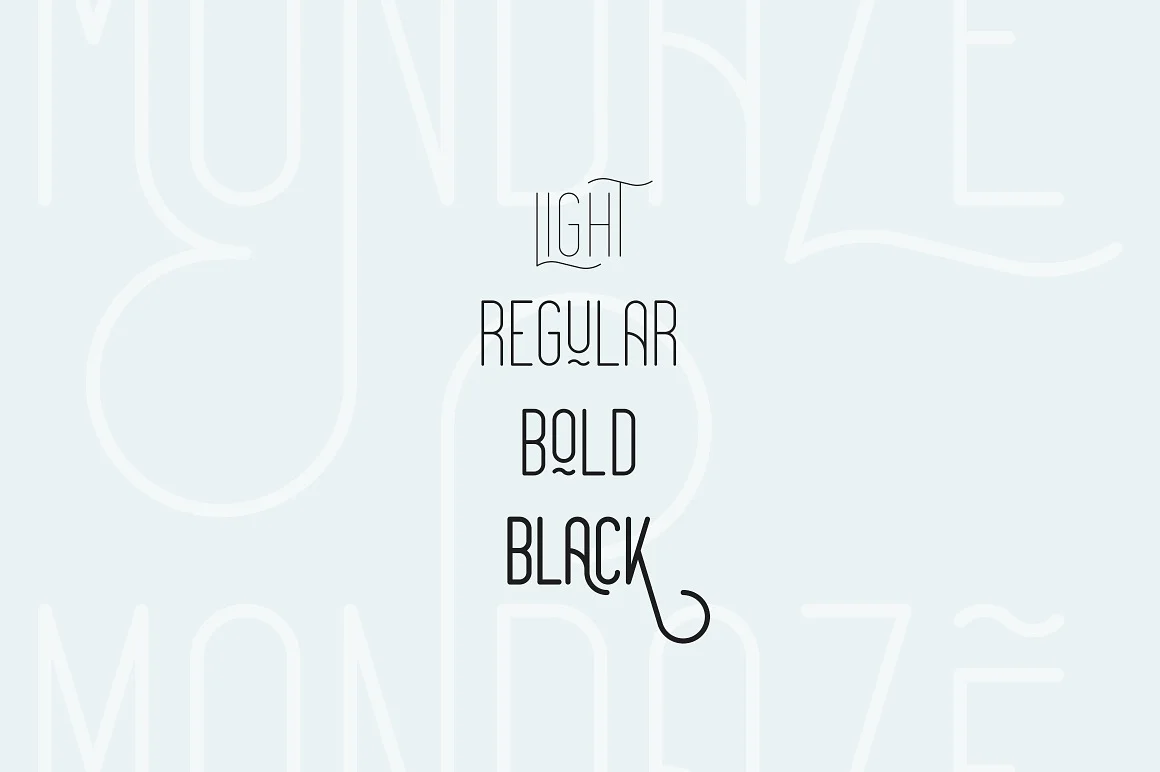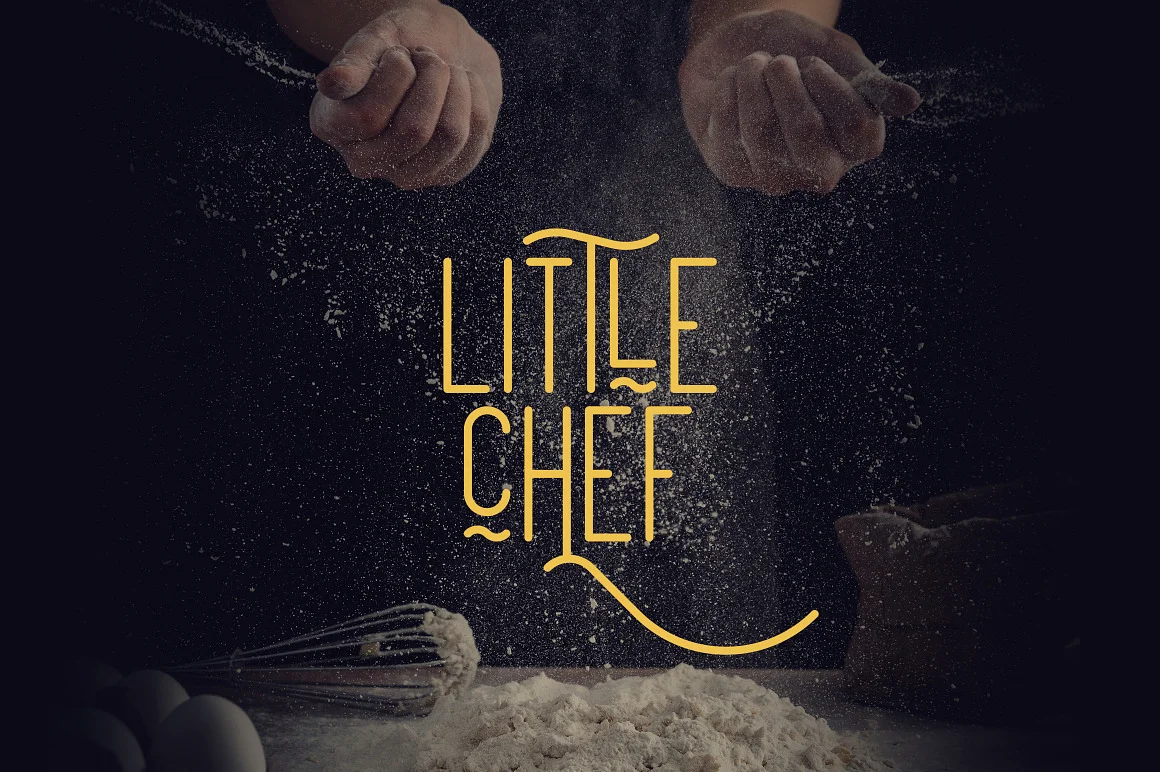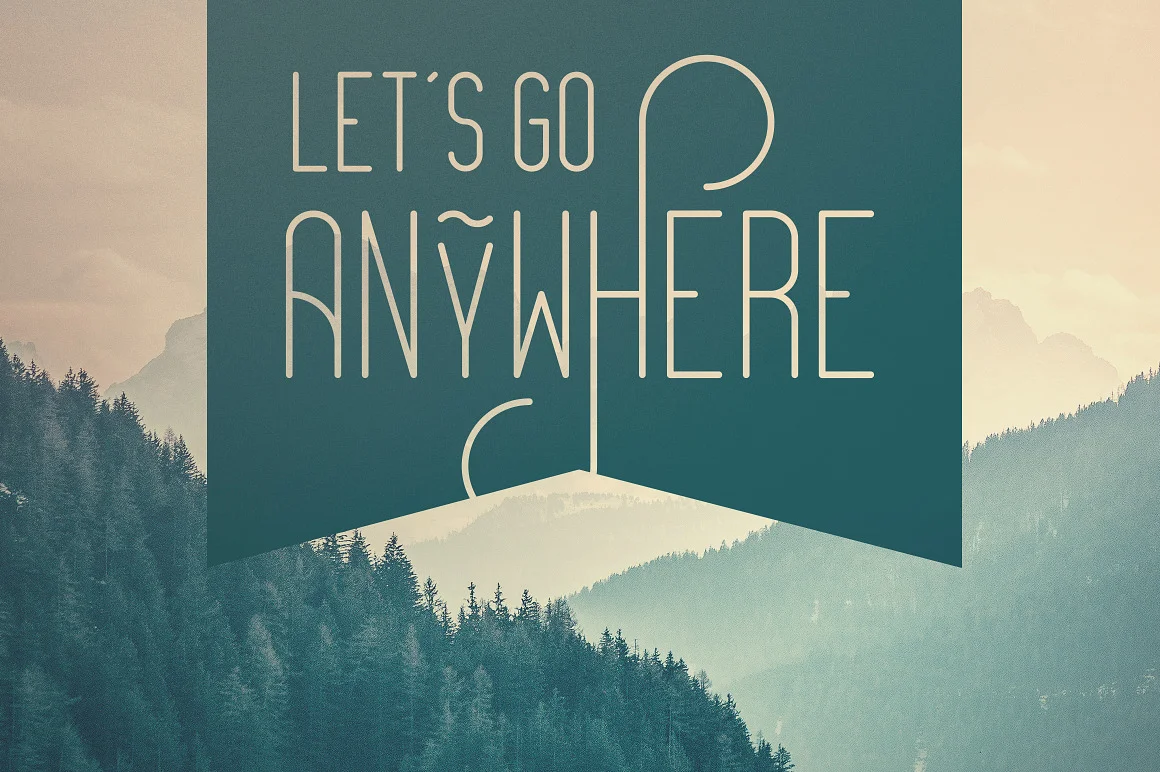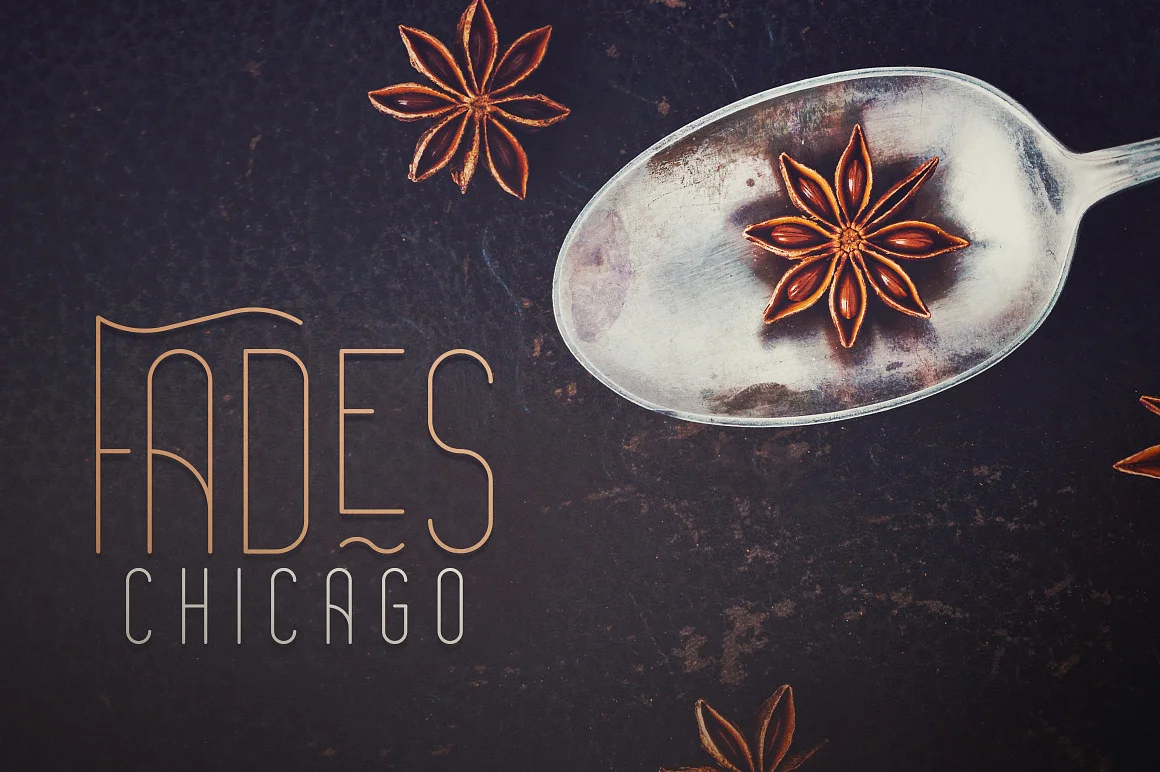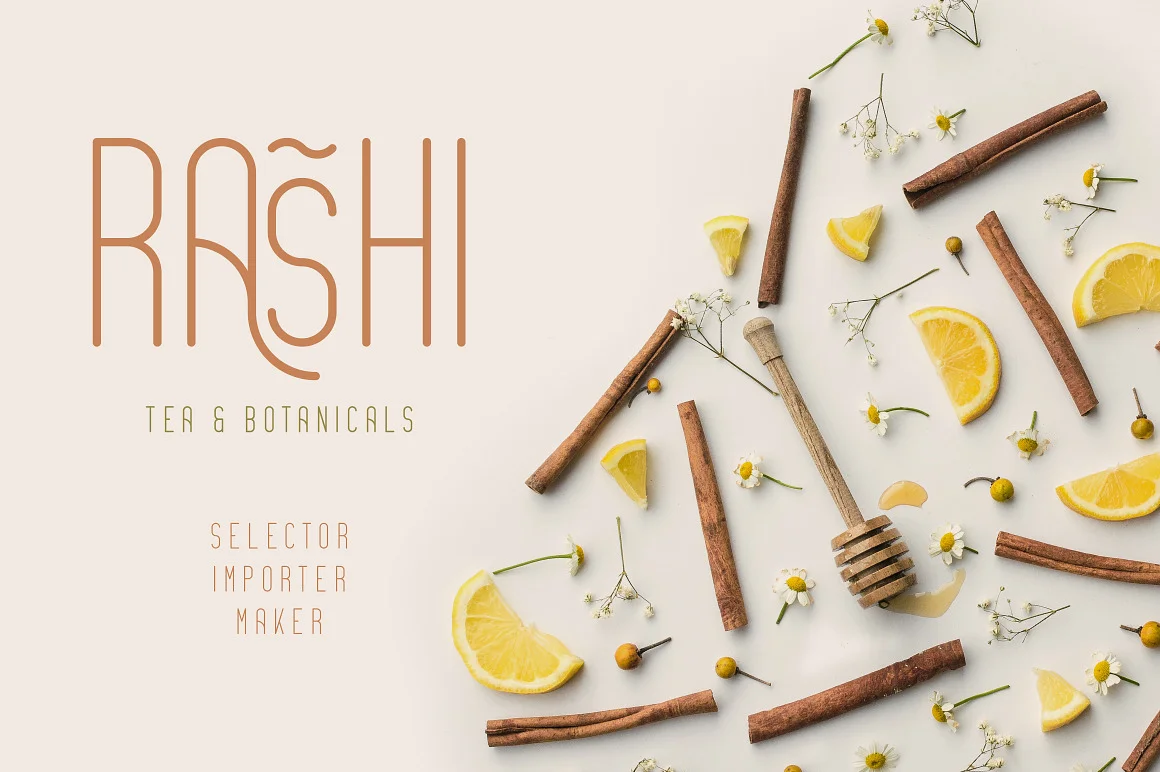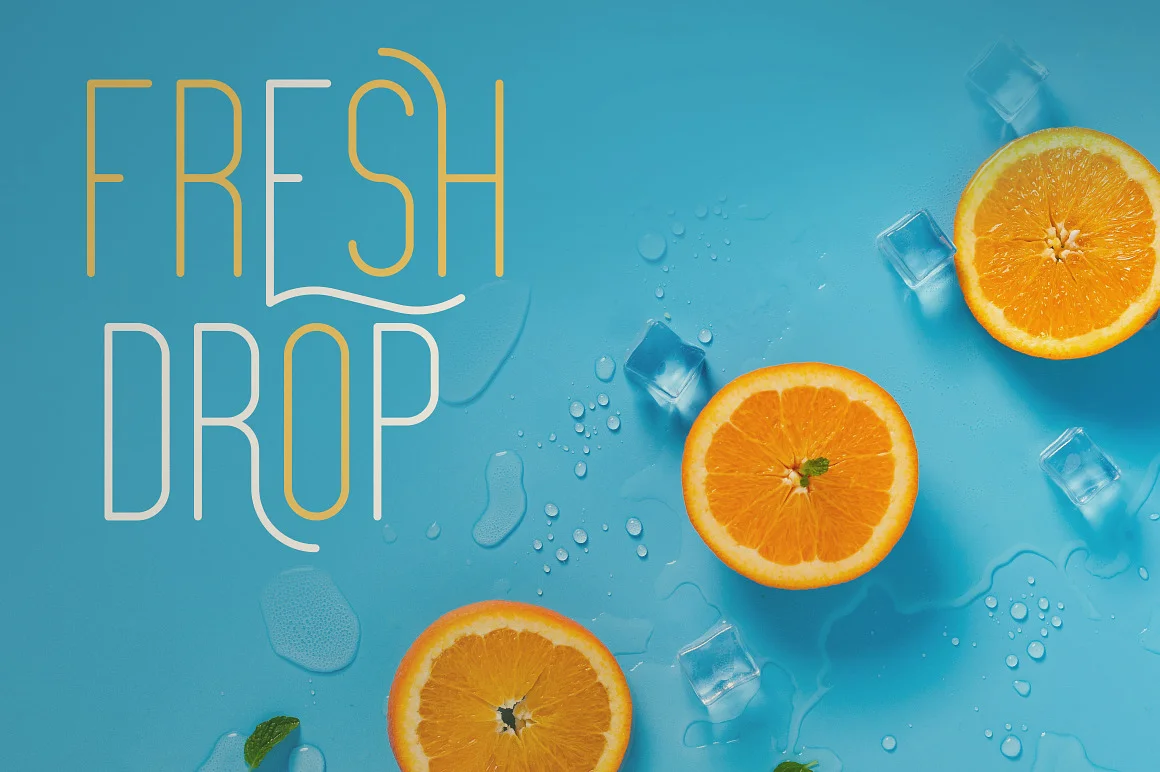
Mondaze Typeface - 4 Weights Font
Mondaze Typeface 4 Weights Font
Mondaze Typeface 4 Weights Font is perfect for dreamy lifestyle branding, relaxed fashion labels, leisure industry marketing, chill social media graphics, laid-back restaurant branding, casual event materials, comfortable product packaging, mellow music album covers, serene spa communications, and peaceful wellness campaigns.
What makes Mondaze Typeface 4 Weights Font so exciting is its dreamy relaxation that captures the essence of leisurely moments and peaceful states of mind while maintaining contemporary sophistication and professional quality. This soothing typeface embodies tranquil elegance and gentle strength, creating typography that instantly evokes feelings of calm and contentment.
The Mondaze Typeface 4 Weights Font family includes light, regular, medium, and bold weights, featuring dreamy design elements, relaxed styling options, and peaceful characteristics that provide designers with comprehensive tools for creating serene and memorable typography that celebrates the beauty of relaxation and mindful living.
Embrace peaceful sophistication with Mondaze Typeface 4 Weights Font, a beautifully crafted typeface that brings dreamy tranquility and relaxed elegance to contemporary design projects. This exceptional font embodies the perfect fusion of peaceful aesthetics and professional functionality, making it an ideal choice for brands that celebrate mindful living and serene experiences.
The gently flowing letterforms of Mondaze Typeface 4 Weights Font showcase dreamy elegance with peaceful character that creates instant emotional connection and calming brand presence. Each character displays careful attention to maintaining the tranquil spirit that defines relaxed sophistication while ensuring contemporary readability and professional versatility. The font's gentle curves and peaceful spacing contribute to its soothing appearance and meditative appeal.
Wellness brands and lifestyle-focused companies consistently choose Mondaze Typeface 4 Weights Font for projects requiring peaceful authenticity and dreamy sophistication. The comprehensive character set includes uppercase and lowercase letters, numerals, extensive punctuation, international accents, and peaceful decorative elements that provide complete support for wellness branding applications and tranquil design compositions.
The timeless serenity of Mondaze Typeface 4 Weights Font ensures exceptional performance across both traditional print and modern digital platforms. Whether developing wellness brand identities, creating relaxed marketing materials, or designing peaceful social media content, this remarkable typeface delivers consistent tranquility that resonates with audiences seeking balance, peace, and mindful living experiences.
Transform your most peaceful projects with Mondaze Typeface 4 Weights Font. This extraordinary typeface brings dreamy sophistication and tranquil elegance to typography, making it the essential choice for designers who create experiences that celebrate the beauty of relaxation and the gentle power of peaceful living.